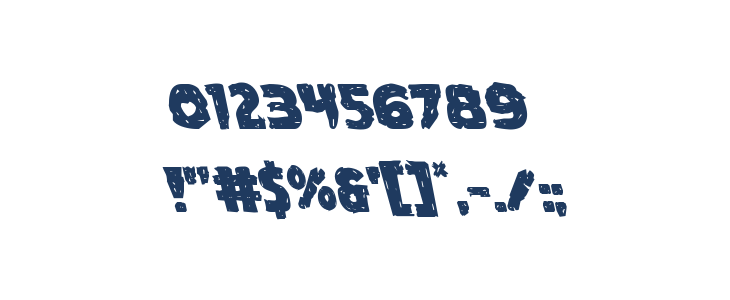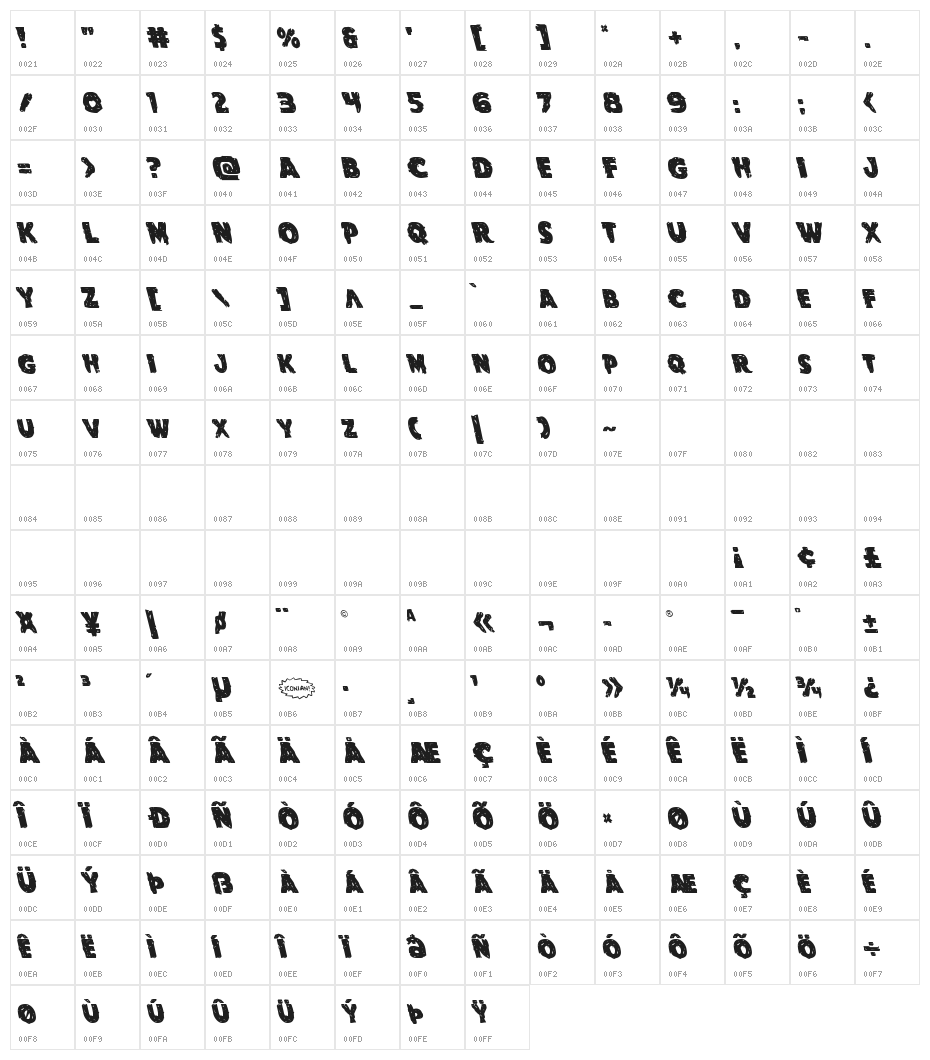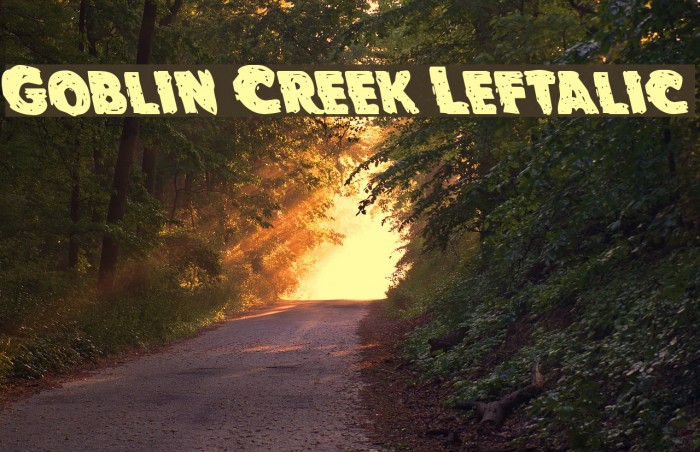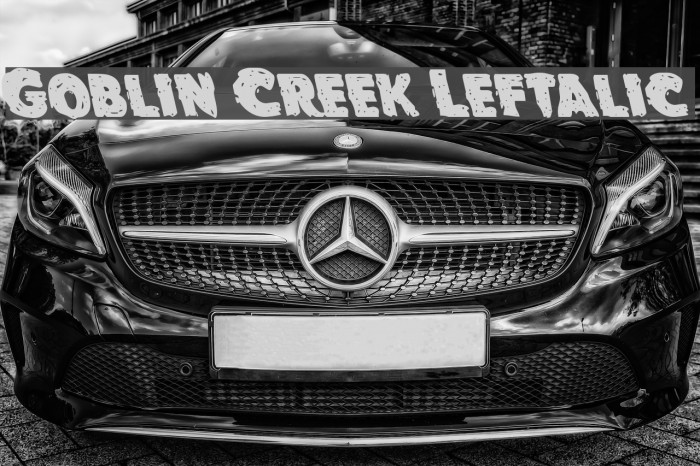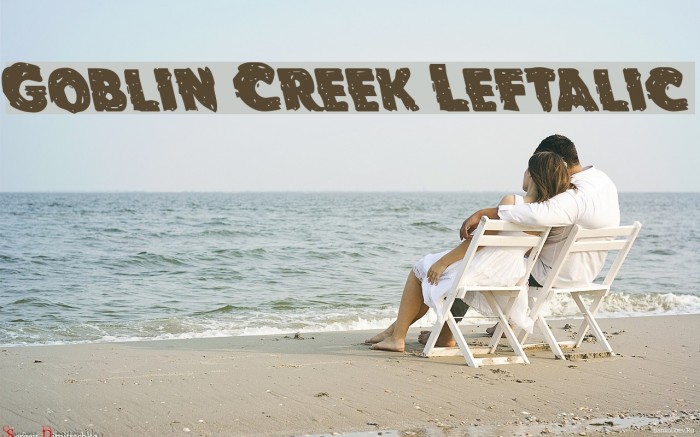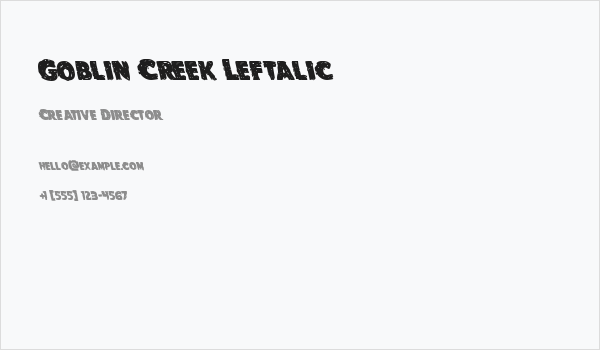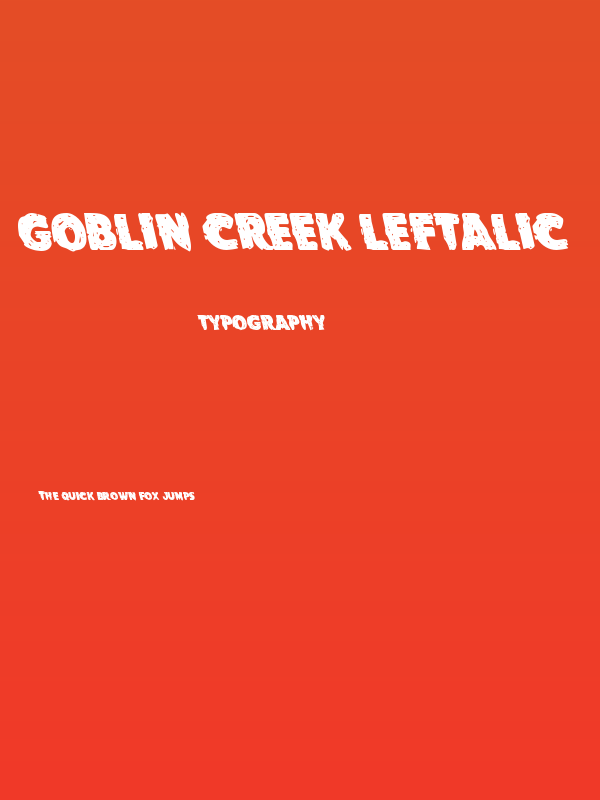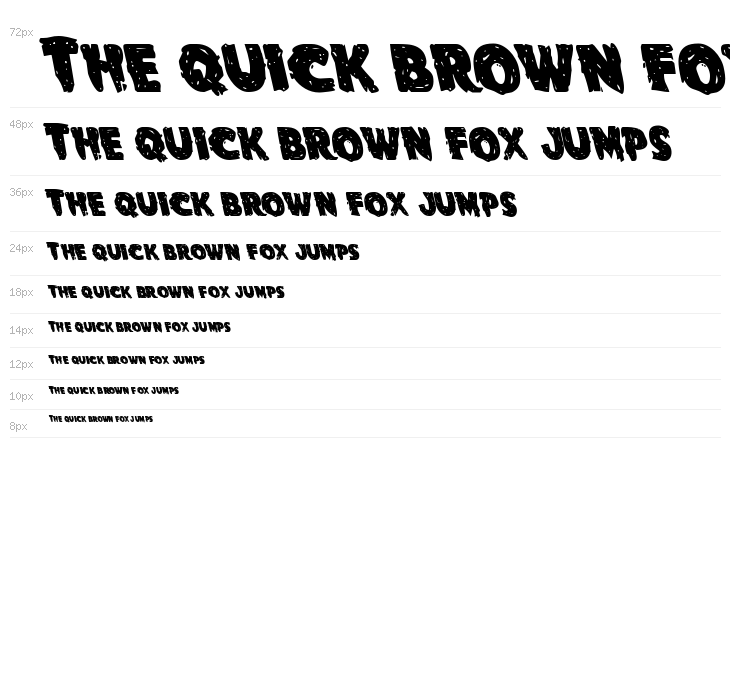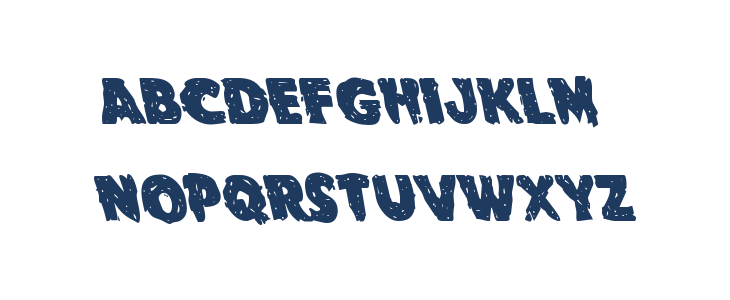
Goblin Creek Leftalic Font
Goblin Creek Leftalic Description
This font features a bold and playful design with a distressed texture that gives it a rugged, adventurous feel. The characters are chunky and slightly slanted, adding a dynamic and energetic vibe. The irregular edges and scattered speckles create a sense of movement and chaos, making it ideal for projects that require a touch of whimsy or a rustic aesthetic. The font maintains legibility despite its decorative elements, making it versatile for various creative applications.
| Proposed Projects | Perfect for Halloween-themed designs, adventure game titles, children's book covers, or any project needing a fun, rugged look. |